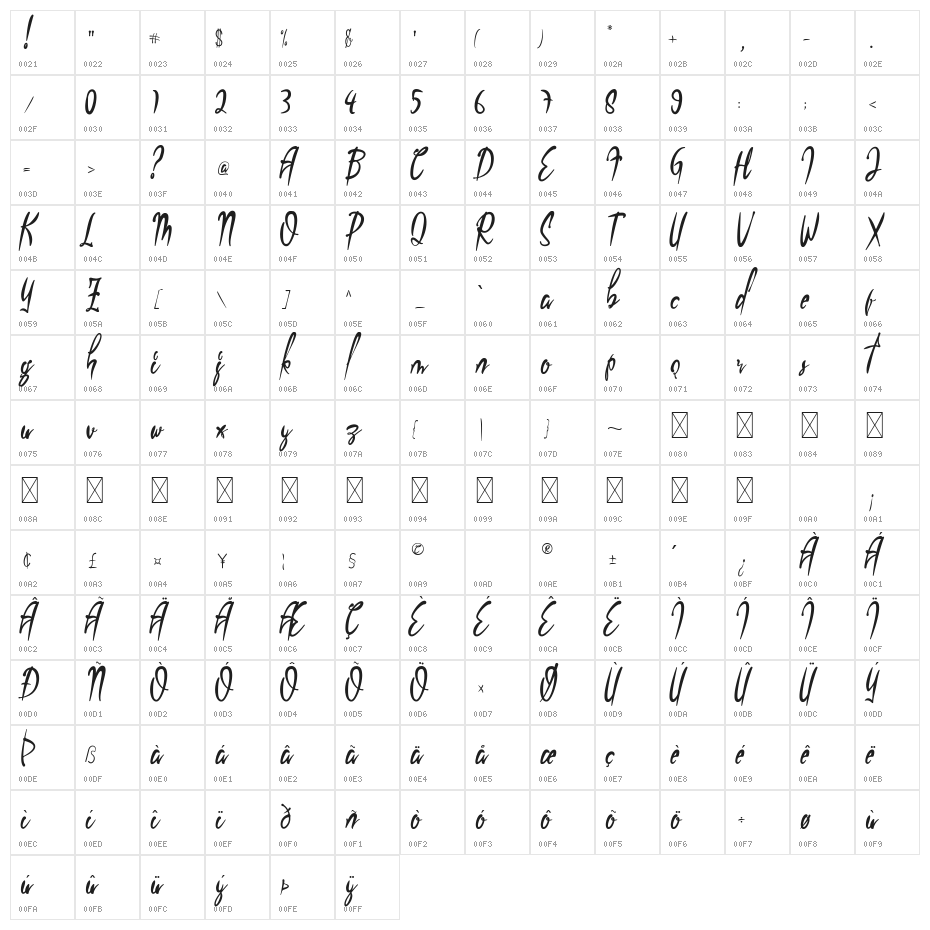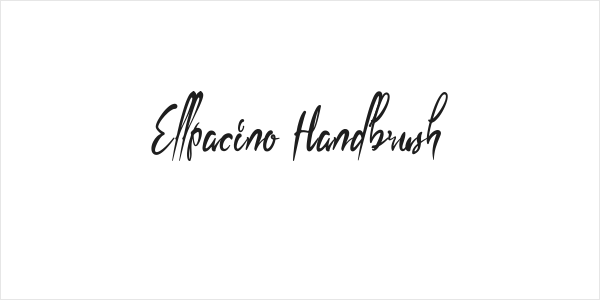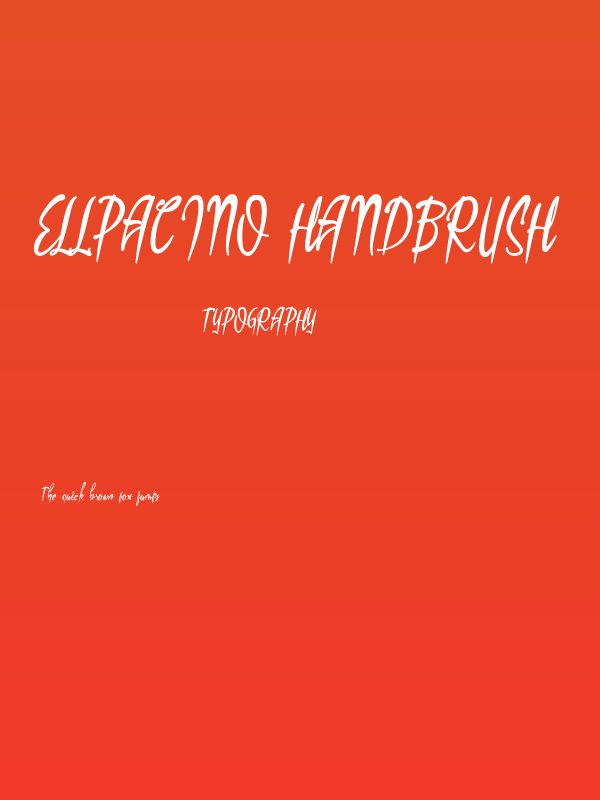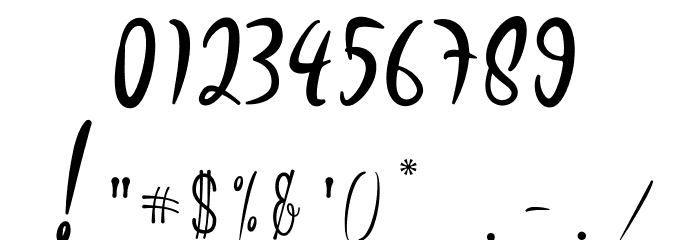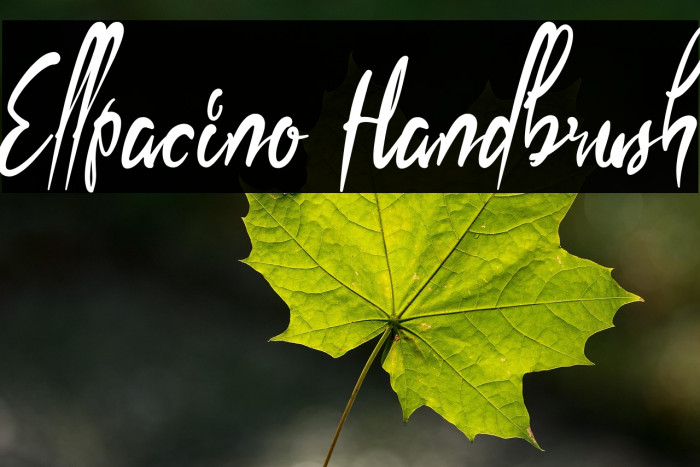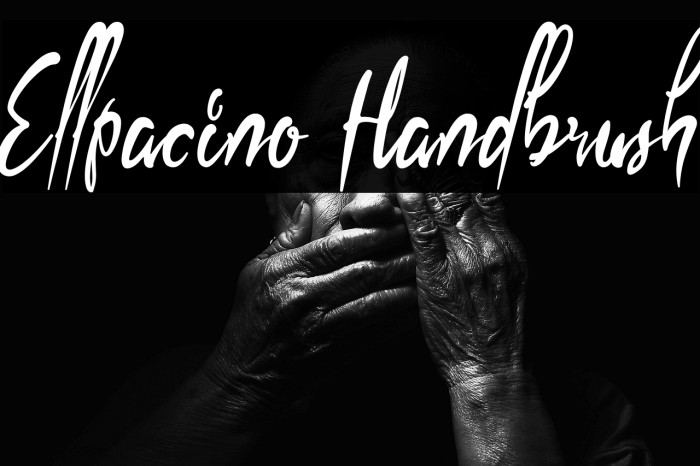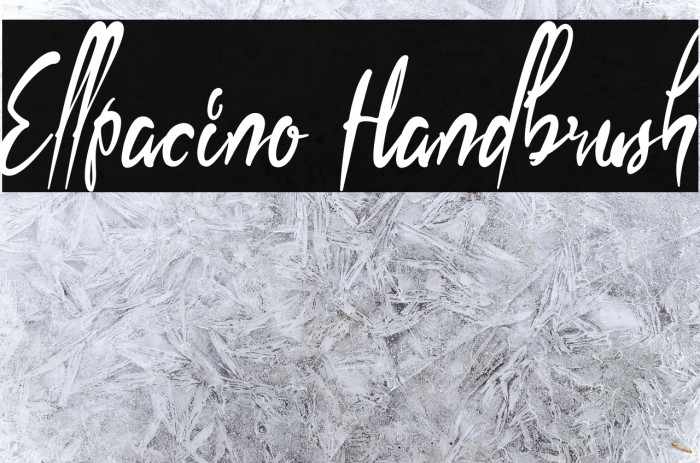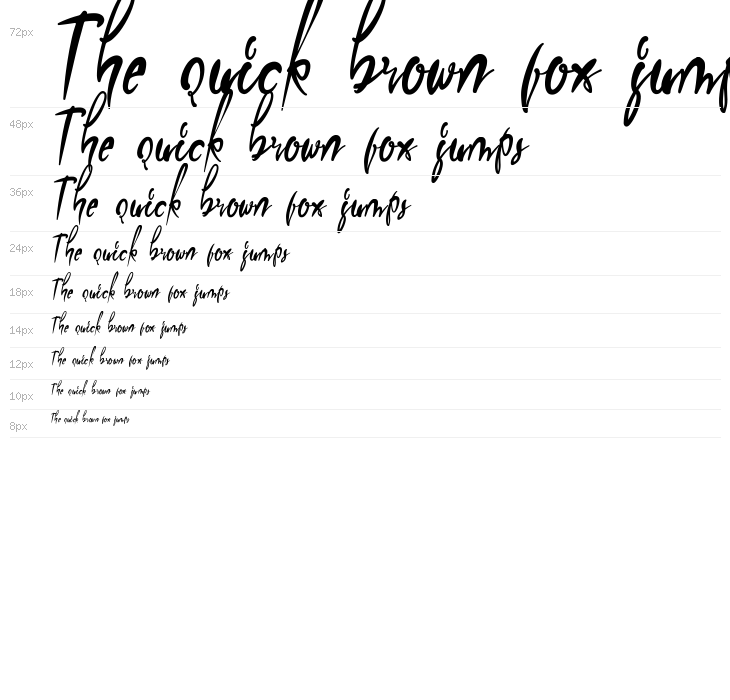
Ellpacino Handbrush Font
Ellpacino Handbrush Description
This font exudes a dynamic and energetic feel, characterized by its bold, sweeping strokes and fluid, hand-drawn appearance. The uppercase letters are tall and slightly condensed, with a playful yet sophisticated flair. The lowercase letters maintain a consistent flow, enhancing the handwritten style. Numbers are clear and distinct, matching the overall aesthetic. Special characters are creatively integrated, adding to the font's versatility. This font is perfect for projects requiring a personal touch, such as invitations, branding, or artistic designs.
| Use Case | Logos, Headlines, Artistic Designs |
| Proposed Projects | Ideal for invitations, branding, artistic designs, and any project needing a personal touch. |